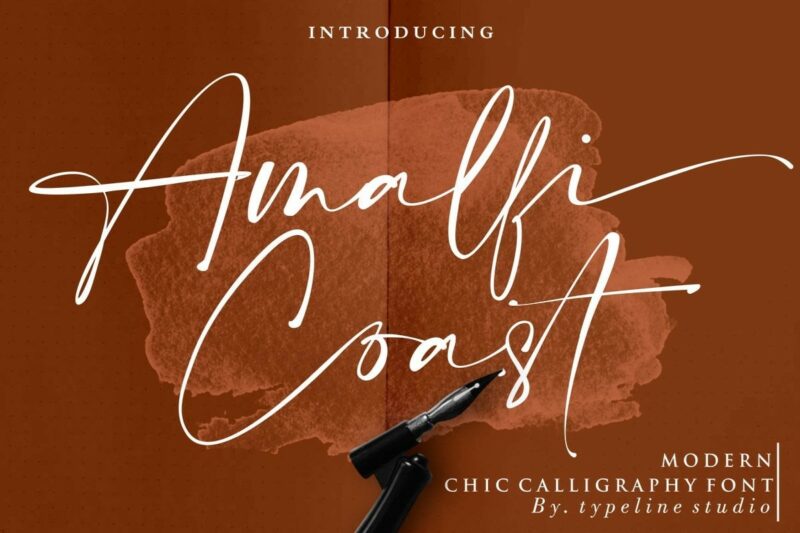
There’s something undeniably captivating about a beautifully-crafted script font that just seems to flow across the page with ease and elegance. In the world of modern calligraphy fonts, Amalfi Coast Font has become a standout choice for countless designers looking to add that perfect touch of sophistication to their projects.
What Exactly is the Amalfi Coast Font?
Amalfi Coast is a modern chic cursive font created by typeline studio (the creative work of designer Yadhie Setiawan). Released in 2019, this font has quickly gained popularity among designers for its elegant flowing style and versatility.
What makes Amalfi Coast special is its “magical pressure” style that mimics the natural flow and varying thickness of genuine hand-lettered calligraphy. The font features a complete set of beautifully hand-lettered uppercase and lowercase letters, numerals, and a wide range of punctuation and ligatures.
One of its most distinctive features is that all lowercase letters include beginning and ending swashes, giving your text that authentic hand-lettered look that’s so sought after in modern design. This attention to detail is what elevates Amalfi Coast from being just another script font to a truly valuable design asset.
Why Designers Love the Amalfi Coast Font
Perfect for Signature Logos
The flowing, elegant style of Amalfi Coast makes it ideal for creating signature-style logos. If you’re designing for photographers, wedding planners, boutique shops, or any brand that wants to convey elegance and a personal touch, this font delivers exactly the right vibe.
Ideal for Wedding Design
Wedding invitations, save-the-dates, place cards, wedding logos, and other wedding stationery need to feel special and personal. Amalfi Coast’s romantic, flowing style checks all the boxes, making it a favorite among wedding designers.
Excellent for Photography Branding
Photography businesses often aim to convey artistic sensibility and elegance. Amalfi Coast works beautifully for photography logos, watermarks, and branding materials, giving them a timeless quality that appeals to clients.
Versatile Enough for Multiple Projects
Unlike some script fonts that only work in specific contexts, Amalfi Coast is remarkably versatile. From business cards to social media graphics, book covers to packaging design, this font maintains its readability and charm across various applications.
Authentic Hand-Lettered Appearance
In an age where authenticity is highly valued, Amalfi Coast manages to capture the organic, slightly imperfect nature of true hand-lettering. This gives your designs a warmth and humanity that perfectly machined fonts often lack.
Technical Details You Should Know
OpenType Features